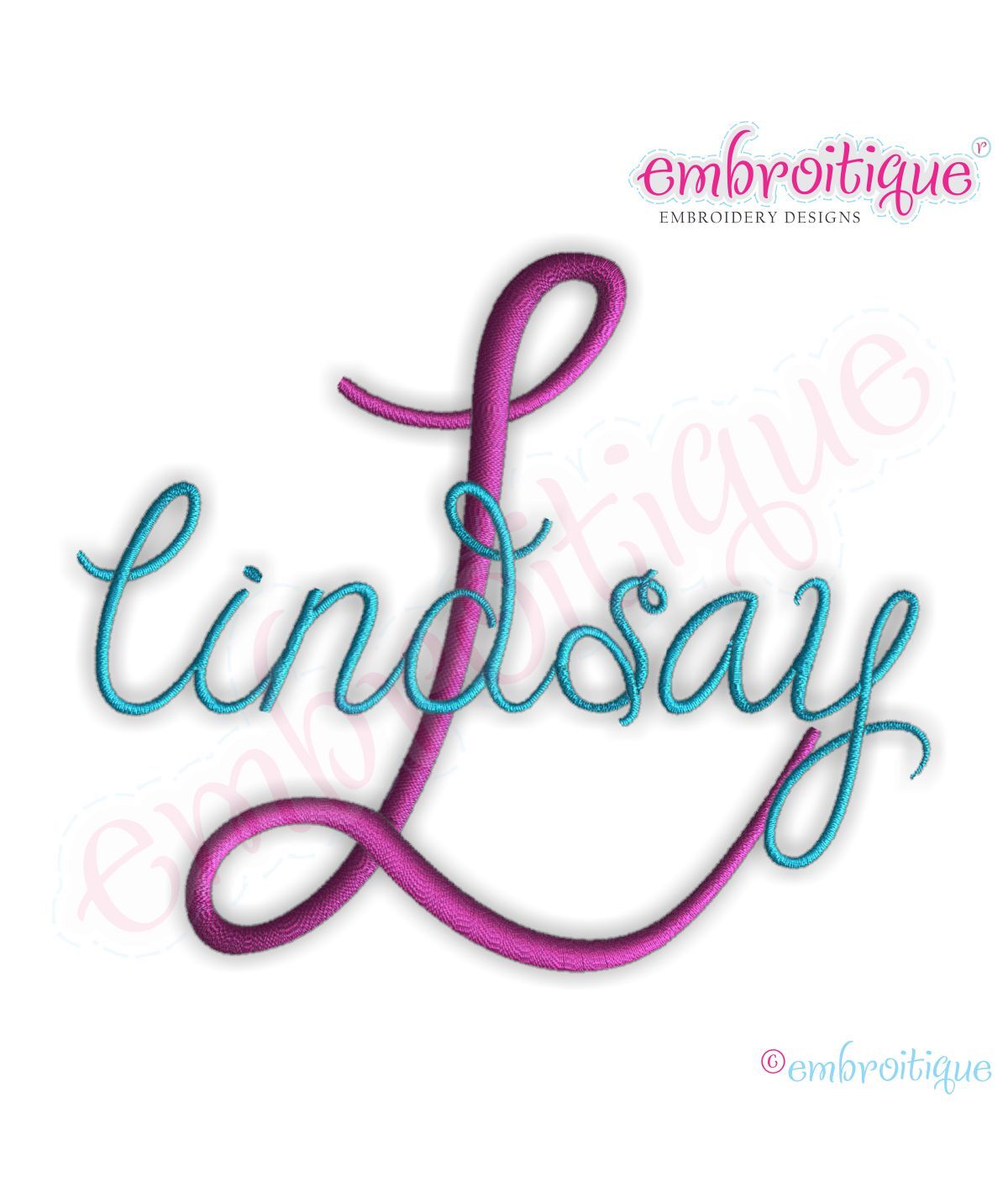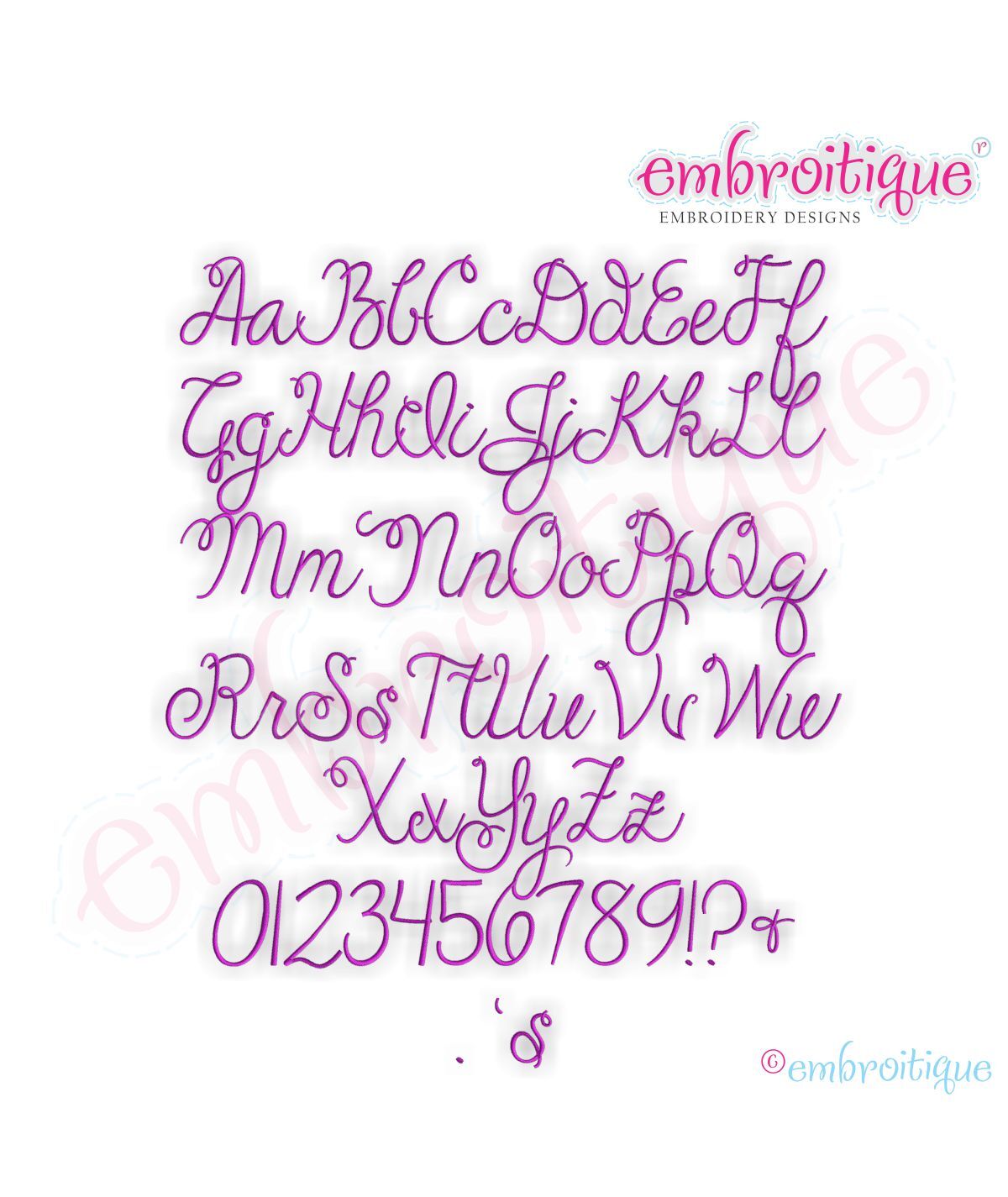
Lindsay Monogram Font Set - Large
This is such a beautiful set! Â Includes Upper Case Letters, Lower Case Letters, Numbers and punctuation & ! ? . 'sÂ